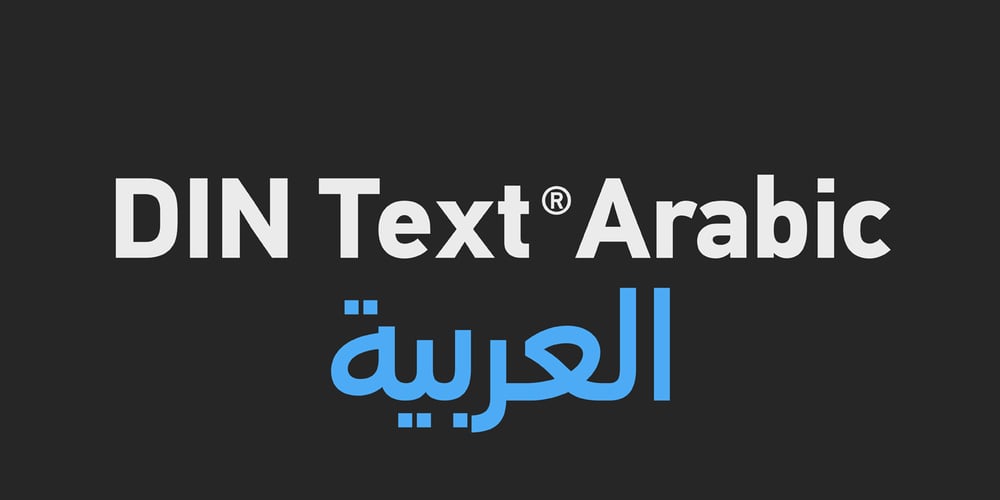
PF DIN Text Arabic
PF DIN Text Arabic font
PF DIN Text Arabic Font Family was designed by Hasan Abu Afash, Panos Vassiliou and published by Parachute. PF DIN Text Arabic contains 8 styles and family package options. This Arabic typeface is one of Parachute’s most involved text typefaces. For the first time -back in 2010- a contemporary Arabic equivalent to a comprehensive DIN series of fonts was available. In fact, this set of fonts contains the most complete and powerful array of Arabic features commercially today. It comes in eight weights and includes Latin. Based on the DIN Text Pro superfamily, Parachute® released -in collaboration with designer Hasan Abu Afash- 2 new versions. DIN Text Arabic is the basic Arabic version which includes Latin and supports all variations of the Arabic script such as Persian, Urdu and Pashto. The second version DIN Text Universal is the most advanced DIN superfamily ever. It combines the powerful DIN Text Pro with DIN Text Arabic bringing the number of glyphs to 3320 per font. It is also enhanced with 30 advanced opentype features and kerning for all languages. Altogether it supports hundreds of languages, proving to be an essential tool for corporations which operate internationally. The whole family consists of eight weights from extra black to hairline. DIN Text Arabic is featured in the recent book Arabesque 2 by Gestalten.